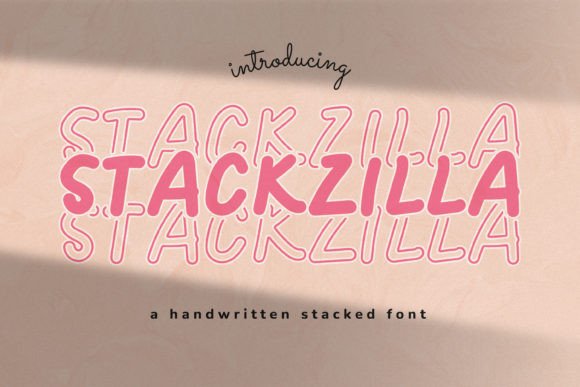
Introducing Stackzilla Font: The Ultimate Display Font for Unforgettable Designs
Step into the world of captivating typography with Stackzilla Font, the ultimate display font that will transform your creative visions into stunning realities. Whether you're a seasoned designer or a passionate crafter, Stackzilla is the key to unlocking the extraordinary in every project.
With its bold and eye-catching personality, Stackzilla commands attention effortlessly. It's the perfect font to make your designs shine in the digital realm. From captivating display ads that stop the scroll to eye-catching headings that demand attention, Stackzilla is the secret weapon for creating designs that resonate and leave a lasting impact.
But Stackzilla's allure goes beyond the digital realm. Unleash your creativity in the physical world with custom designs and DIY crafts that exude charm and individuality. Let Stackzilla's unique character add a touch of enchantment to your handmade cards, personalized gifts, and home décor projects. It's the perfect font to turn ordinary creations into extraordinary expressions of your personal style.
Stackzilla's versatility knows no bounds. Whether you're crafting logos that leave an indelible mark or designing posters that ignite imaginations, this font adapts seamlessly to your creative vision. Its bold strokes and dynamic curves lend a touch of sophistication to any project, making it a favorite among designers and artists worldwide.
The possibilities with Stackzilla are endless. Dive into the world of custom t-shirt designs, where Stackzilla's bold presence makes a statement wherever you go. Create social media graphics that pop off the screen, captivating your audience with every post. Or let Stackzilla's charm shine through in your branding materials, leaving a lasting impression on potential customers.
Don't settle for ordinary fonts that blend into the background. Choose Stackzilla and embrace a world of creative possibilities where your designs take center stage. It's the font that breathes life into your imagination, transforming your creative endeavors into masterpieces that captivate and inspire.